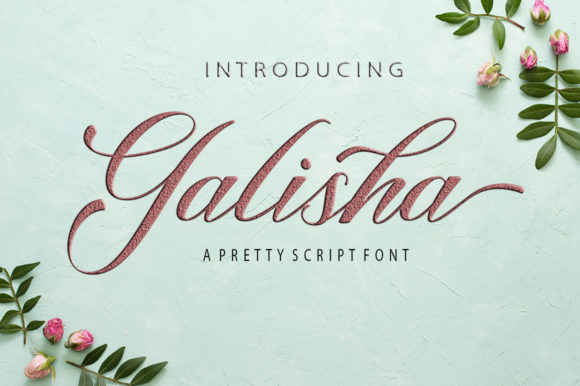
Galisha Font: A Timeless Script with Elegant Charm
Galisha Font is a stunning script that exudes an elegant feel, making it perfect for designs that require a touch of sophistication. This beautiful font is inspired by traditional calligraphy and offers a unique, timeless charm that can elevate any design project. In this article, we’ll explore the features and benefits of Galisha Font, and how you can use it to add a touch of elegance to your designs.
Key Features of Galisha Font
- Elegant Script Style: Galisha Font is a script font that features elegant, flowing lines and curves, making it perfect for designs that require a touch of sophistication.
- Timeless Charm: The font’s classic design ensures that it will remain timeless and relevant, even as design trends evolve.
- High Readability: Galisha Font is designed to be highly readable, making it perfect for use in body text, headings, and titles.
- Versatile: The font is versatile and can be used in a variety of design projects, from wedding invitations and branding materials to packaging and digital media.
Benefits of Using Galisha Font
Galisha Font offers a range of benefits for designers and businesses looking to add a touch of elegance to their designs. Some of the key benefits include:
- Unique and Memorable: Galisha Font’s unique design ensures that your designs will stand out and be remembered.
- Professional and Sophisticated: The font’s elegant style makes it perfect for designs that require a professional and sophisticated look.
- Easy to Read: Galisha Font’s high readability ensures that your message will be easily understood by your audience.
- Customizable: The font can be customized to suit your design needs, making it perfect for use in a variety of applications.
Uses of Galisha Font
Galisha Font is a versatile font that can be used in a variety of design projects, including:
- Wedding Invitations: The font’s elegant style makes it perfect for use in wedding invitations and other formal events.
- Branding Materials: Galisha Font can be used in branding materials, such as logos, business cards, and letterheads.
- Packaging: The font can be used in packaging designs, such as product labels and packaging inserts.
- Digital Media: Galisha Font can be used in digital media, such as website headers, social media graphics, and email newsletters.
Pairing Galisha Font with Other Fonts
Galisha Font can be paired with other fonts to create a unique and visually appealing design. Some font pairing suggestions include:
- Serif Fonts: Pairing Galisha Font with serif fonts, such as Times New Roman or Georgia, creates a classic and elegant look.
- Sans-Serif Fonts: Pairing Galisha Font with sans-serif fonts, such as Arial or Helvetica, creates a modern and sophisticated look.
- Script Fonts: Pairing Galisha Font with other script fonts, such as Pacifico or Great Vibes, creates a elegant and whimsical look.
Galisha Font is a stunning script font that offers a timeless charm and elegant feel. Its versatility, readability, and unique design make it perfect for a variety of design projects, from wedding invitations and branding materials to packaging and digital media. By pairing Galisha Font with other fonts and using it in your designs, you can add a touch of sophistication and elegance that will make your designs stand out.